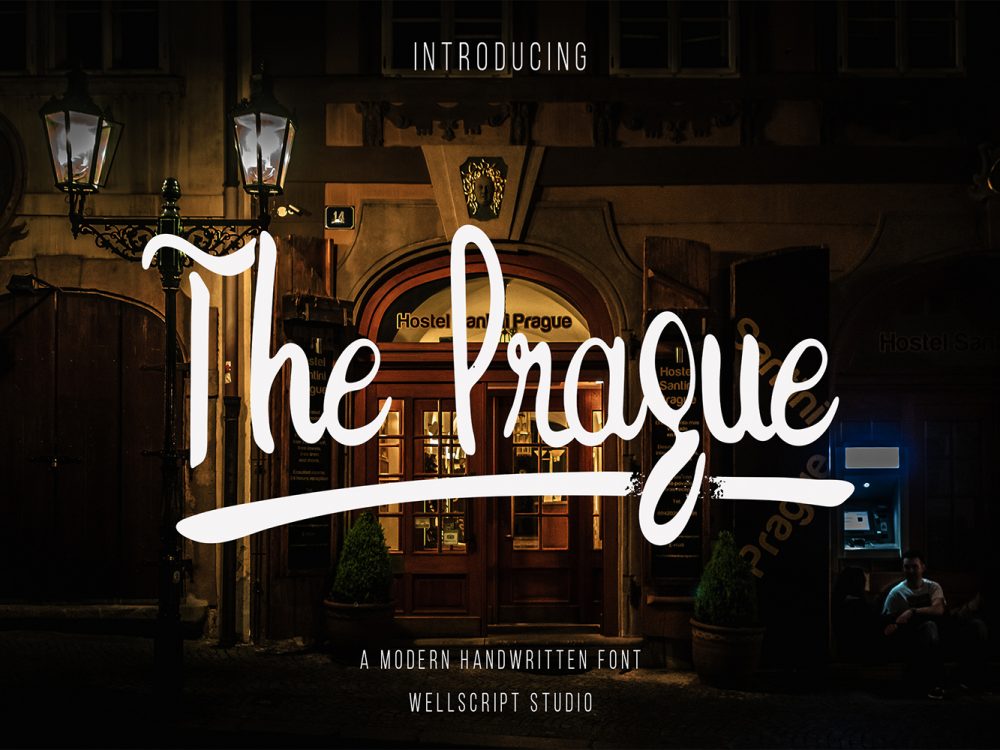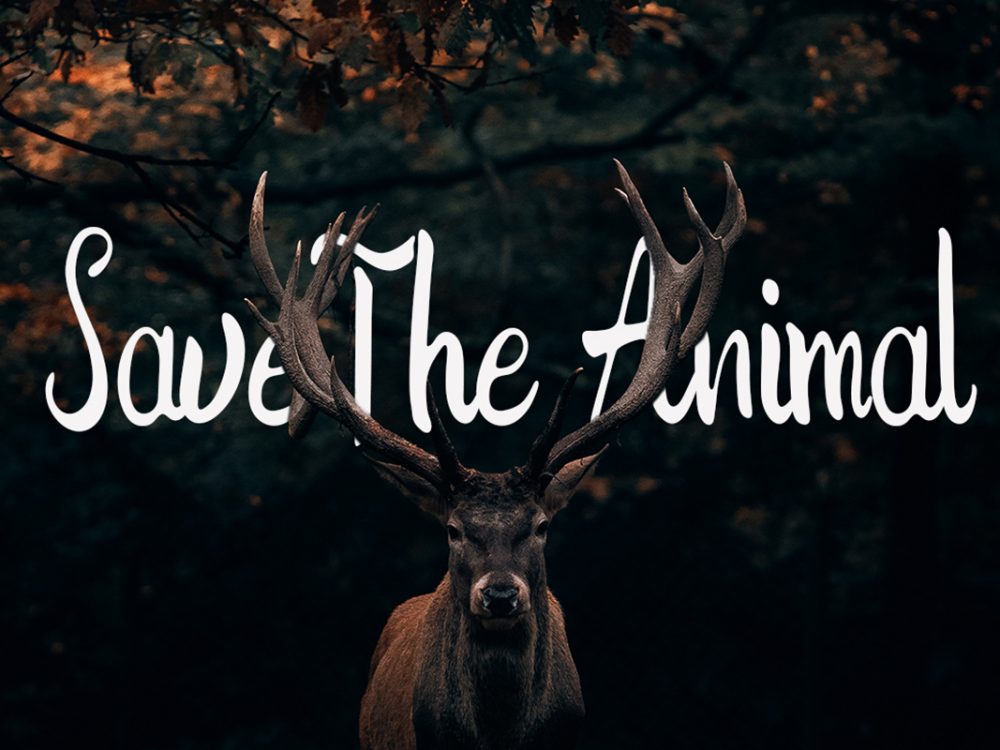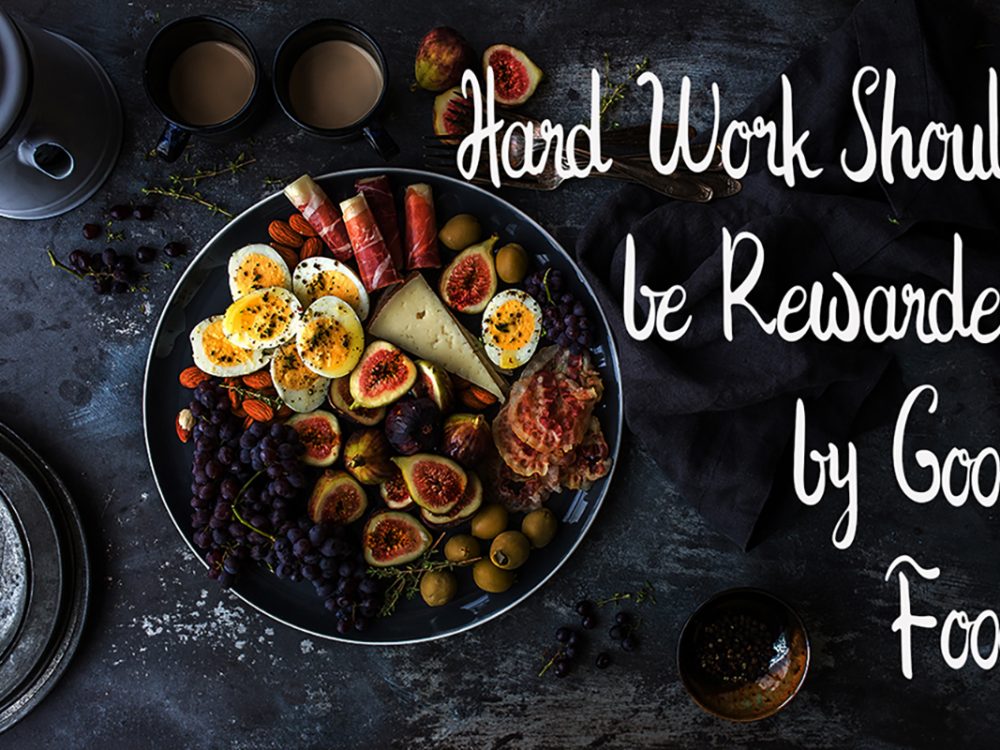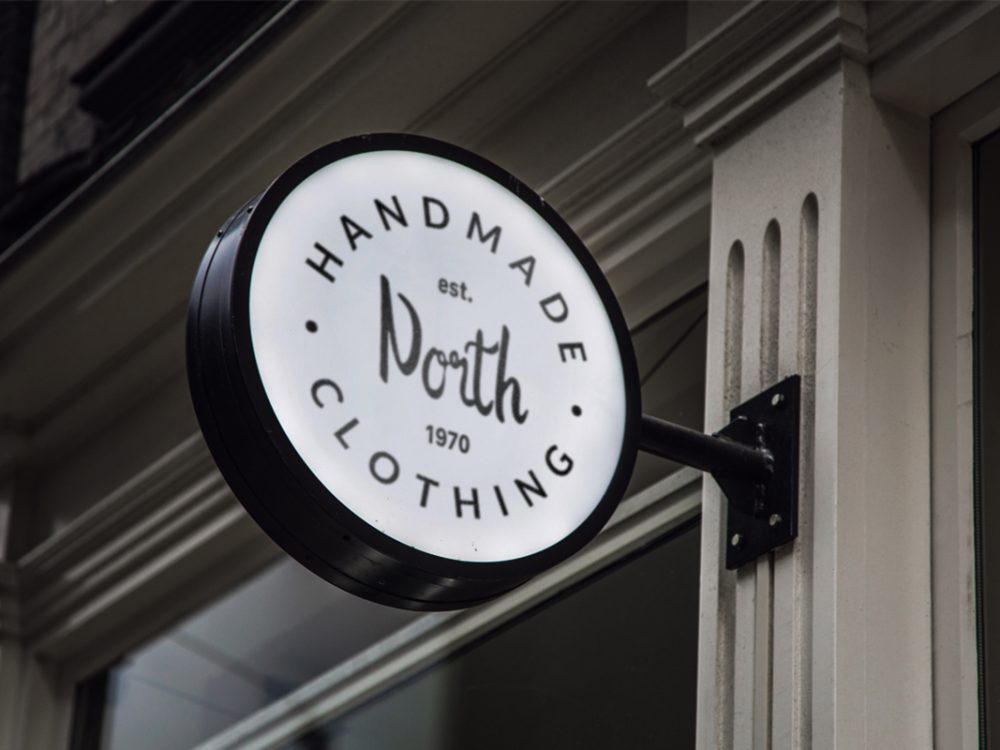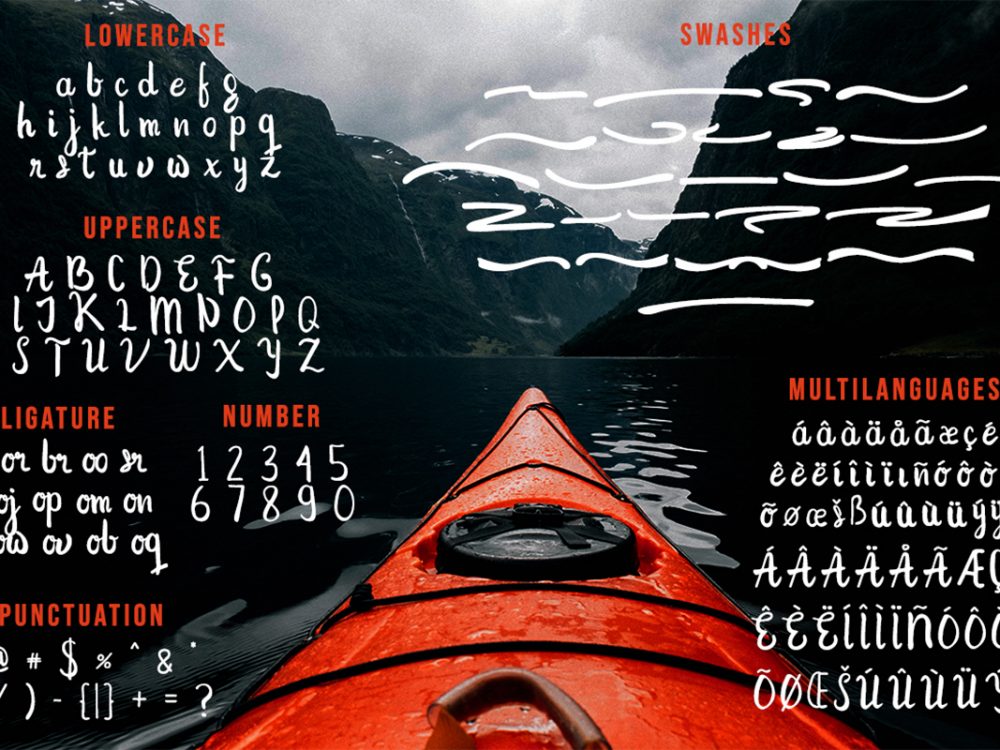
The Prague Handwritten Script Font
The Prague Handwritten Script Font is a beautiful stylish professional handwritten font that will help give your designs more uniqueness and creativity. Perfect for branding, clothing prints, posters, flyers, and more. If you want to get more features for this font please click the full version button below.